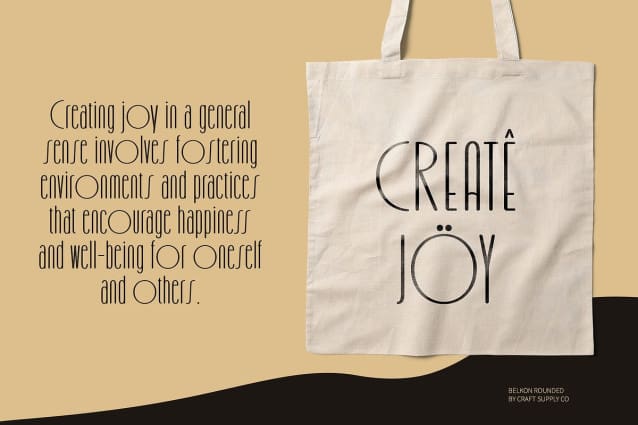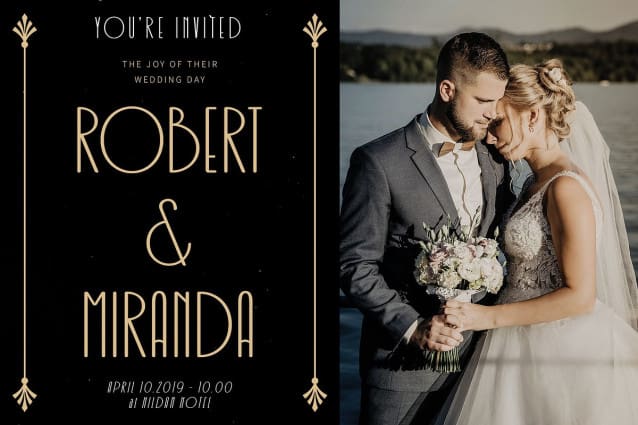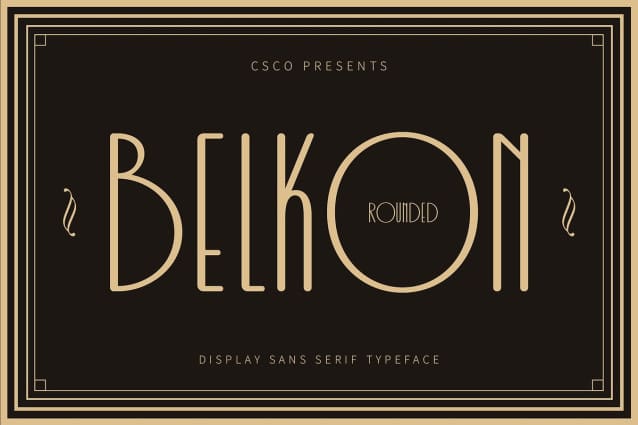
Belkon Rounded Font
Belkon Rounded Font is a modern sans-serif font that elegantly combines the opulence of Art Deco with sleek, rounded forms. This typeface merges geometric precision with luxurious details, featuring soft, rounded edges that offer a sophisticated and stylish appearance.
Sophisticated and Stylish Look With its blend of vintage glamour and contemporary finesse, Belkon Rounded is perfect for high-end branding, elegant packaging, and refined editorial designs. The font’s luxurious Art Deco influences and modern design elements create a striking and memorable visual impact.
Ideal for High-End Branding and Elegant Designs Whether used in branding, packaging, or editorial projects, Belkon Rounded adds a touch of sophistication and refinement. Its combination of classic Art Deco elements with modern rounded forms makes it a versatile choice for projects seeking a blend of vintage charm and contemporary elegance.
Elevate Your Projects with Belkon Rounded Enhance your design with Belkon Rounded, where Art Deco opulence meets modern sophistication. Its geometric precision and rounded forms bring a distinctive style to any project, making it perfect for creating high-end, elegant, and visually engaging designs.